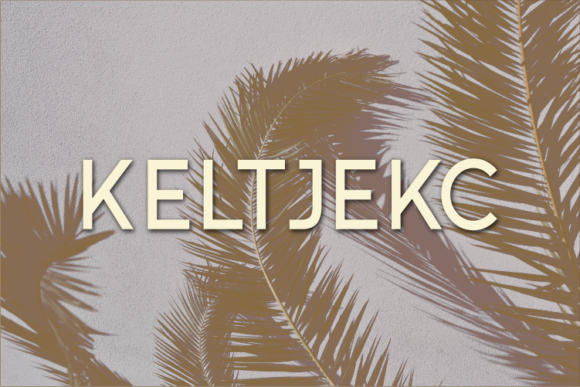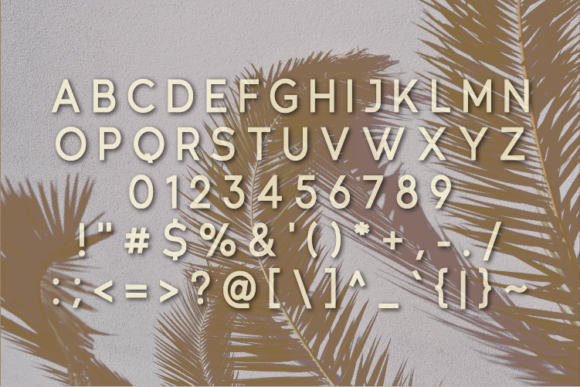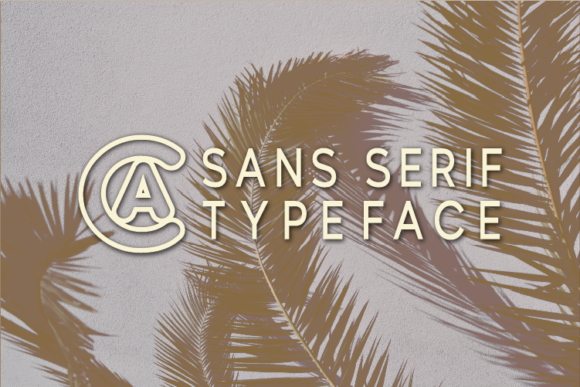
Keltjekc Font: Modern Sans Serif for Logos & Elegant Branding
About the Keltjekc Font
We are excited to introduce Keltjekc Font, a must-have typeface for any serious designer. Introducing Keltjekc, a modern and classy sans serif typeface.
An extremely versatile font, perfect for logos, weddings, invitations, quotes, advertisements, print, magazines, and more!
Keltjekc’s clean lines and contemporary feel make it ideal for headlines, branding applications, and short-form text on posters or packaging. Its versatility shines in projects requiring a modern yet sophisticated aesthetic. However, its elegance doesn’t translate well to body text or lengthy paragraphs; smaller sizes can lose legibility. Avoid using it in user interfaces (UI) where readability at various sizes is paramount.
The font exudes a confident, modern personality. For a balanced pairing, consider a classic serif like Garamond for body text to complement its sleekness, or a playful script such as Pacifico for a touch of contrast in secondary elements. Alternatively, a geometric sans-serif like Futura could create a cohesive, minimalist feel.
Pairing Keltjekc with a warmer, more organic font (depending on project needs) can soften its somewhat formal feel and add visual interest. Think of brands focused on luxury goods, technology, or sophisticated services as ideal matches for this typeface.
Keltjekc Font Usage Examples
Keltjekc Font Example